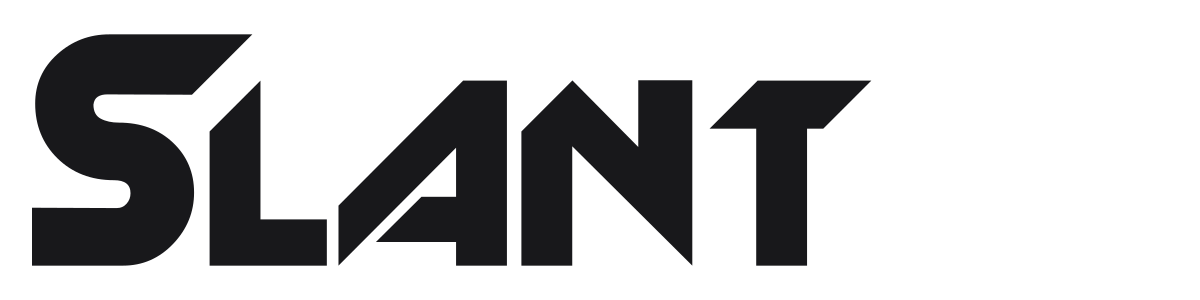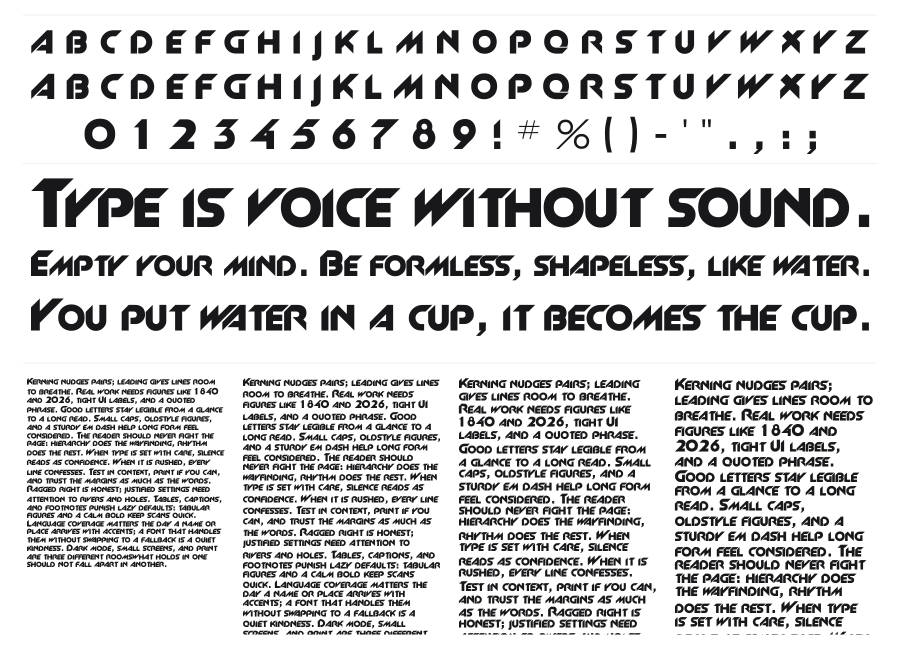
Slant
Slant is a heavy geometric sans-serif built entirely around forward-slanted vertical strokes, giving every character the look of something moving fast. The sharply angled cuts and diagonal terminals are consistent across the alphabet, creating a unified sense of momentum that feels both retro-futuristic and intensely physical. It belongs on race posters, album covers, and game titles.